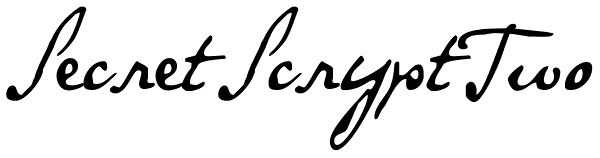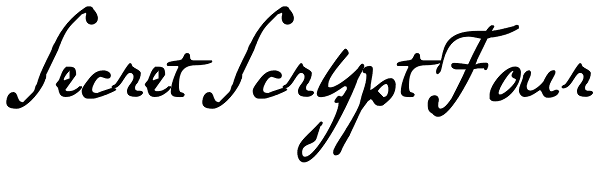
Secret Scrypt
Emulating real handwriting has always been an aim of font designers in the digital age. The standard mainstream scripts and doodles that were available for the longest time have not successfully reached that goal. A letter always looked the same...
Secret Scrypt One
Secret Scrypt Two
Secret Scrypt Three
Secret Scrypt Four